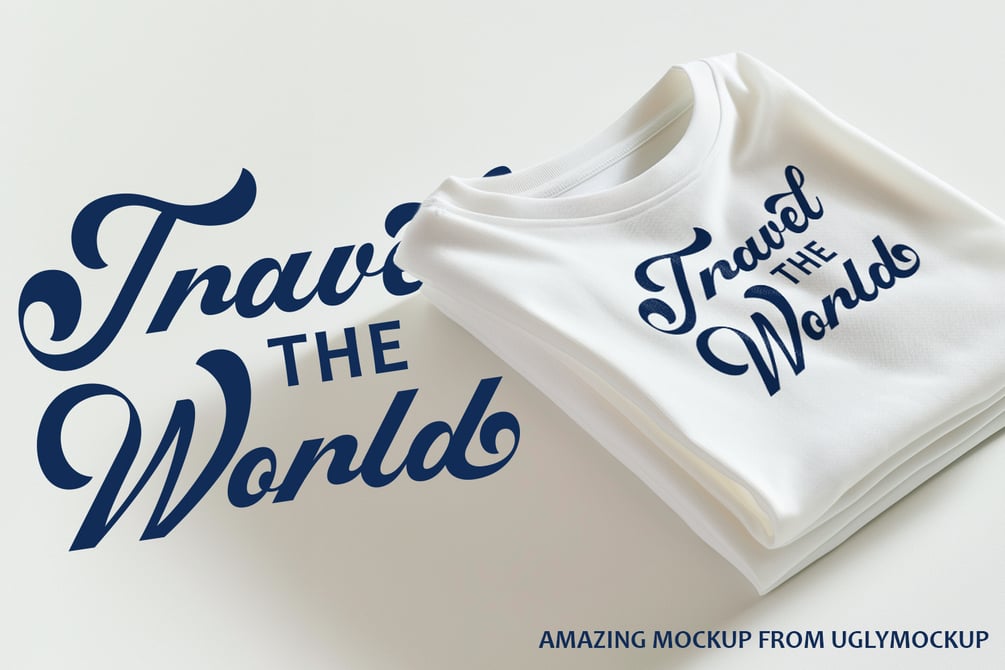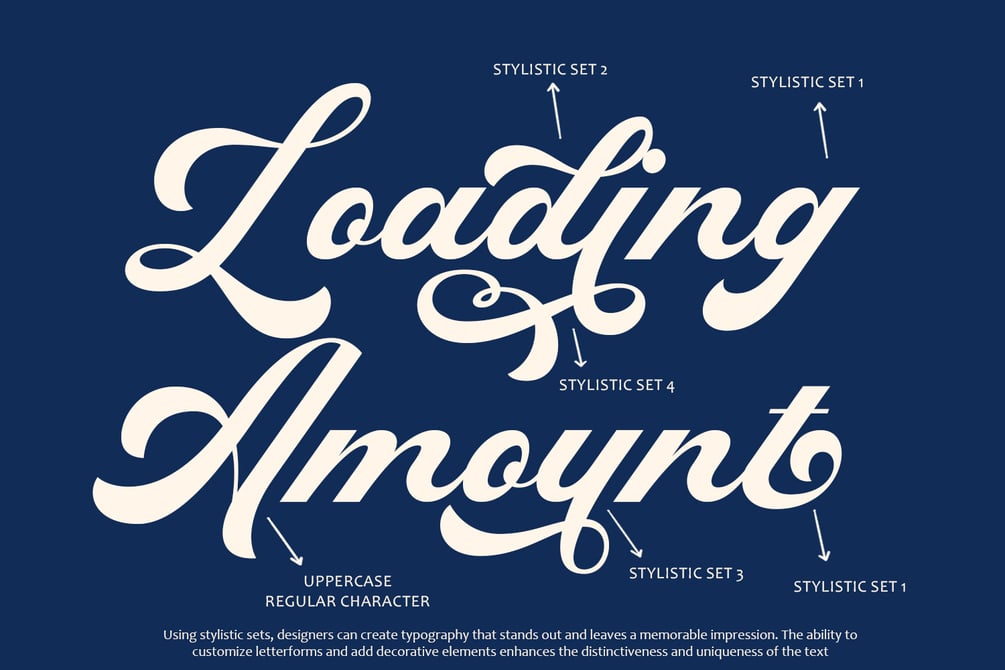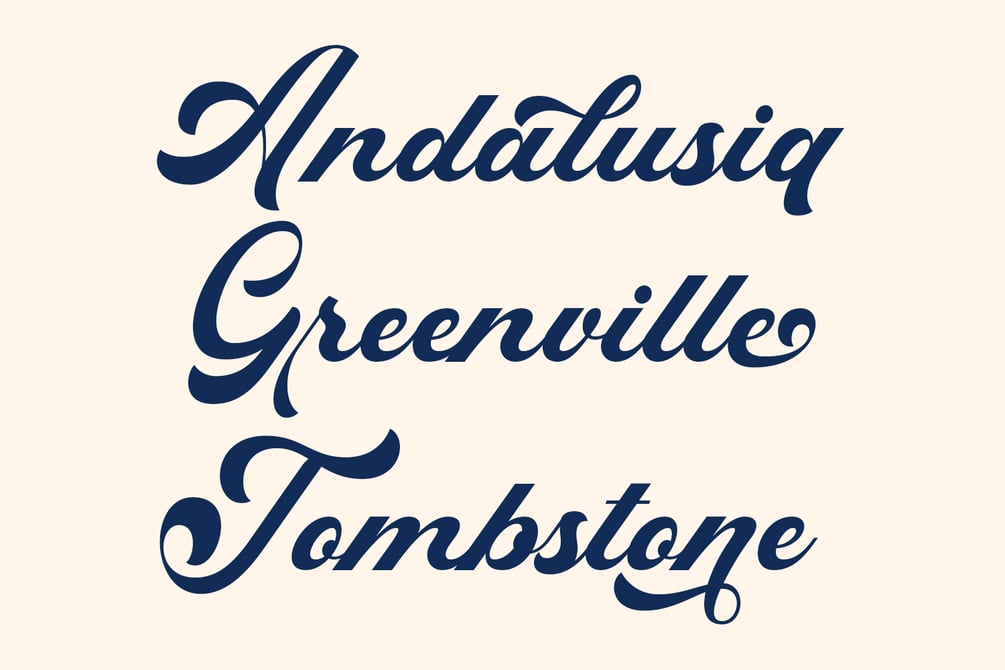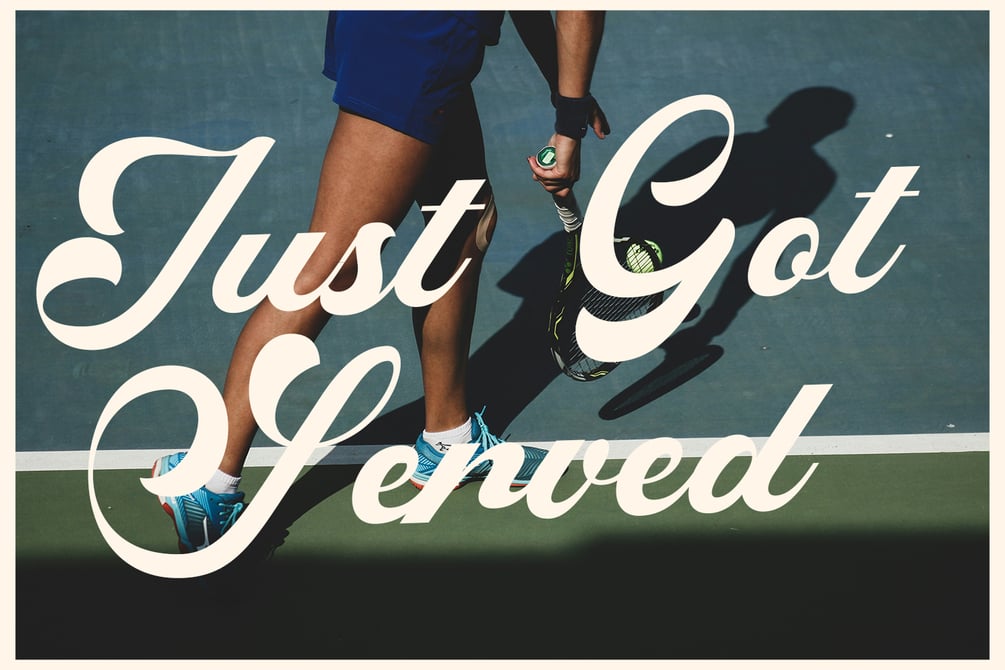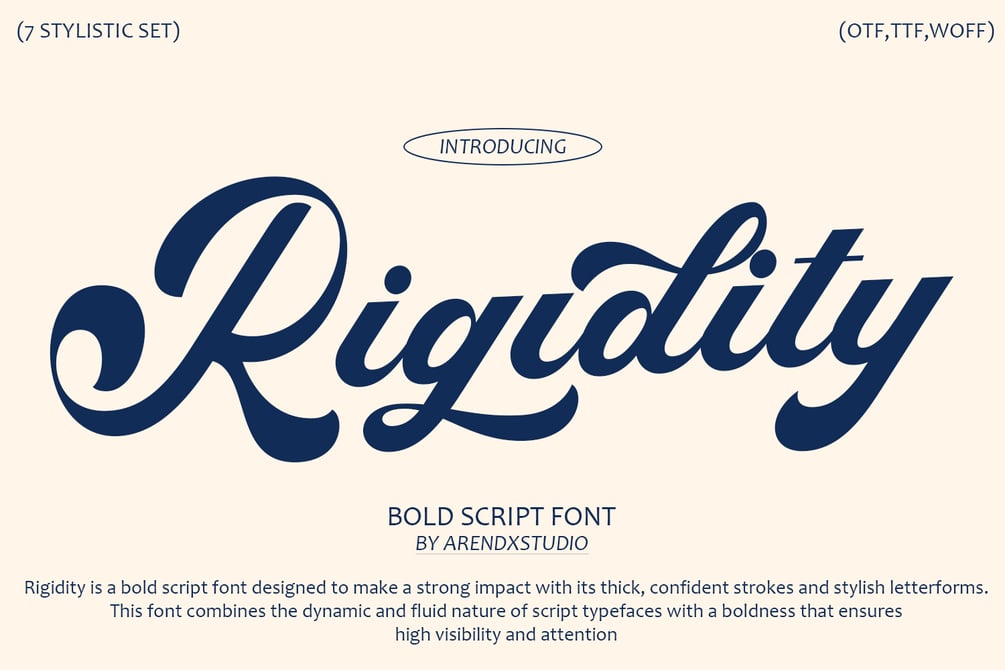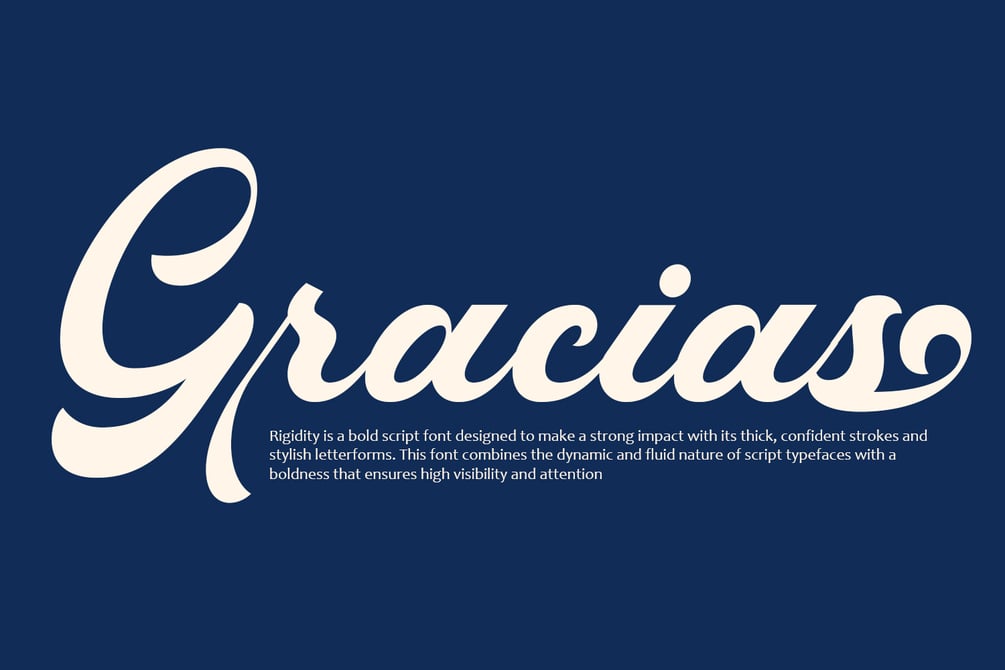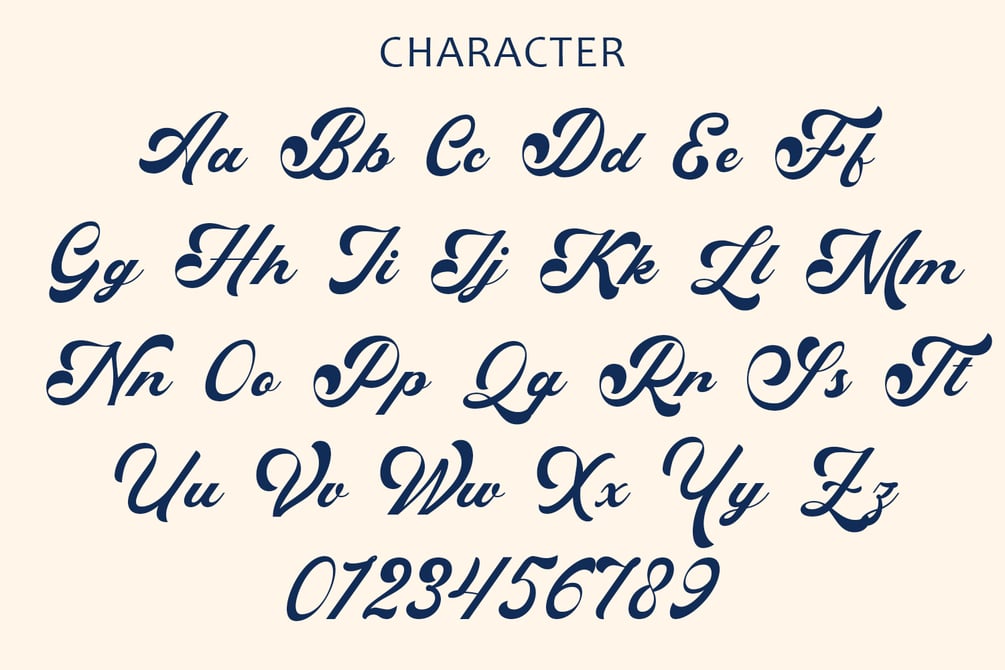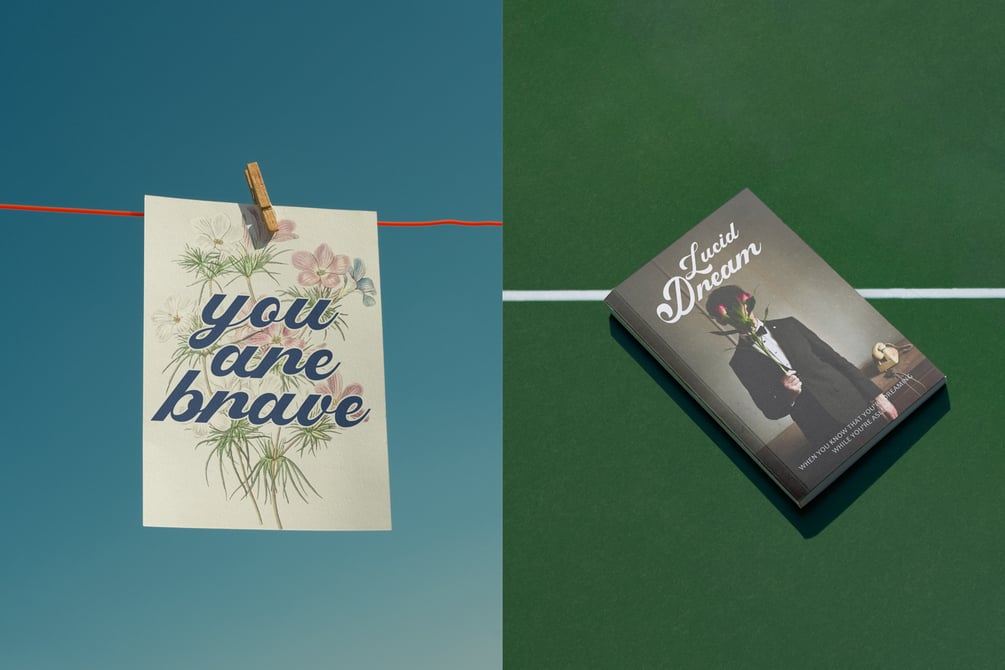
Rigidity Bold Script Font
### Explanation of Bold Script Font: Rigidity
Font Name: Rigidity
Type: Bold Script Font
#### Overview:
"Rigidity" is a bold script font designed to make a strong impact with its thick, confident strokes and stylish letterforms. This font combines the dynamic and fluid nature of script typefaces with a boldness that ensures high visibility and attention. Ideal for a variety of design projects, "Rigidity" is perfect for making statements that need to stand out.
#### Key Features of Rigidity:
1. Bold and Striking Design:
- Thick Strokes: The font features thick and robust strokes that provide a bold appearance, making it suitable for headlines, posters, and attention-grabbing elements.
- High Visibility: Designed to be easily readable from a distance, "Rigidity" ensures your message is seen and noticed.
2. Dynamic Script Elements:
- Fluid Letterforms: Despite its boldness, "Rigidity" retains the fluidity of traditional script fonts, with smooth curves and connected letters that add a sense of movement and elegance.
- Stylish Swashes: The font includes stylish swashes and flourishes, enhancing its decorative appeal and allowing for creative typography.
3. Versatility in Usage:
- Multiple Contexts: "Rigidity" is versatile and can be used in various design contexts such as branding, packaging, posters, social media graphics, and more.
- Complementary Pairing: It pairs well with other typefaces, especially simple sans-serif or serif fonts, to create balanced and visually appealing designs.
4. Extended Character Set:
- Comprehensive Glyphs: The font includes a comprehensive set of glyphs, with uppercase and lowercase letters, numerals, punctuation, and special characters, ensuring it meets diverse design needs.
- Language Support: "Rigidity" supports multiple languages, making it accessible for international use.
#### Benefits of Using Rigidity:
1. Attention-Grabbing:
- Impactful Presence: The bold design of "Rigidity" ensures that your text stands out, making it ideal for advertisements, headlines, and other high-impact uses.
- Memorable Style: Its unique blend of boldness and script elegance creates a memorable style that can define the visual identity of a brand or project.
2. Enhanced Readability:
- Clear and Legible: The font is designed for clarity and legibility, even at smaller sizes, ensuring your message is conveyed effectively.
- Balanced Design: The balanced design of thick and thin strokes contributes to readability while maintaining a stylish appearance.
3. Creative Flexibility:
- Design Variety: With stylistic alternates and swashes, "Rigidity" provides designers with creative flexibility to craft unique typographic compositions.
- Expressive Typography: The expressive nature of the script font allows for creative typographic expressions, adding personality and flair to any design.
4. Professional Appeal:
- Elegant Yet Strong: "Rigidity" combines elegance with strength, making it suitable for professional applications such as corporate branding, product packaging, and high-end marketing materials.
- Timeless Quality: The font's design is timeless, ensuring it remains relevant and stylish across different trends and time periods.
### Conclusion
"Rigidity" is a bold script font that brings together the elegance of script lettering with the impactful presence of bold typography. Its thick strokes, fluid letterforms, and versatile applications make it an excellent choice for a wide range of design projects. Whether used for headlines, branding, or creative typography, "Rigidity" ensures your text is not only readable but also memorable and visually appealing. By incorporating "Rigidity" into your designs, you can achieve a strong, stylish, and professional look that stands out.